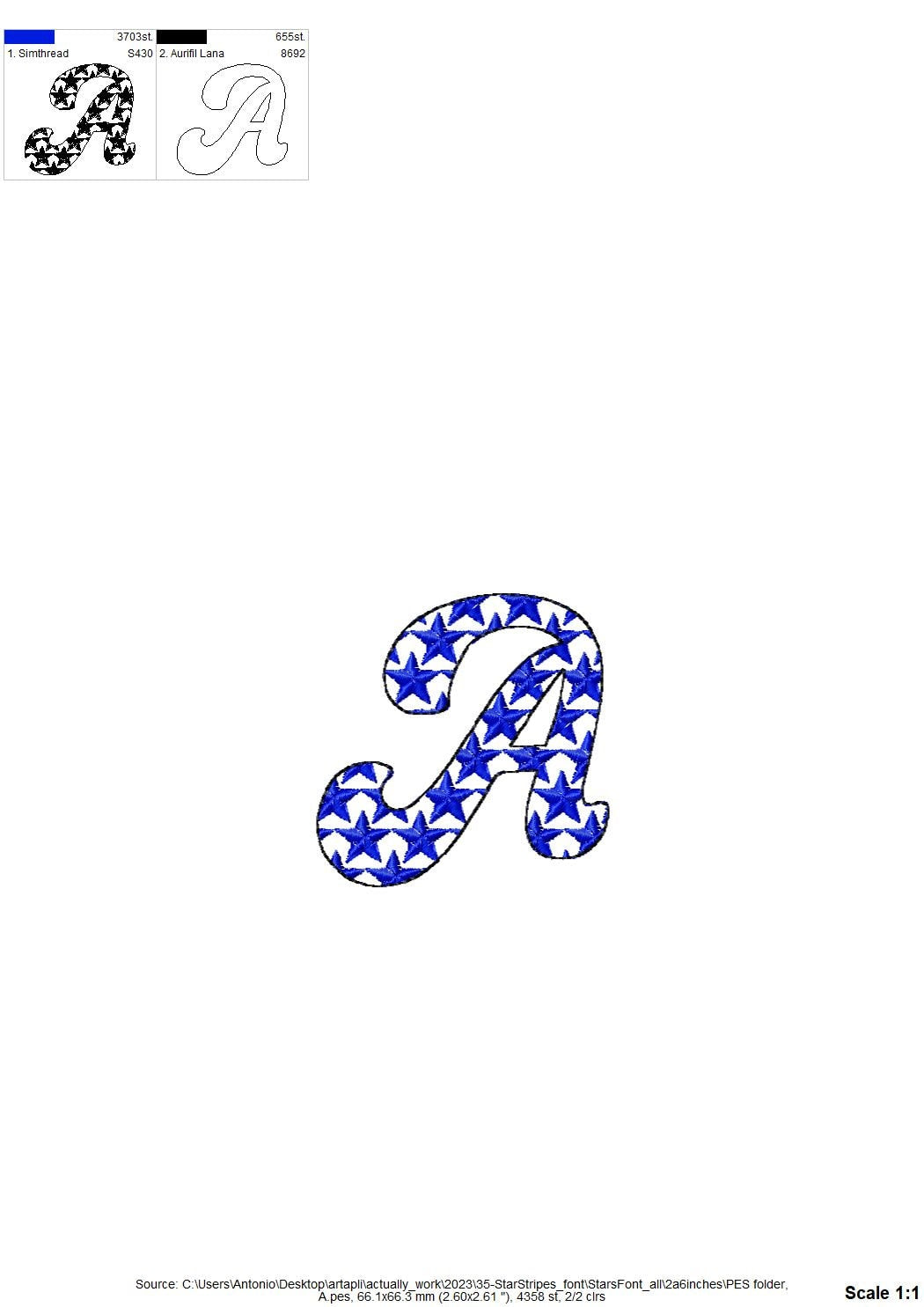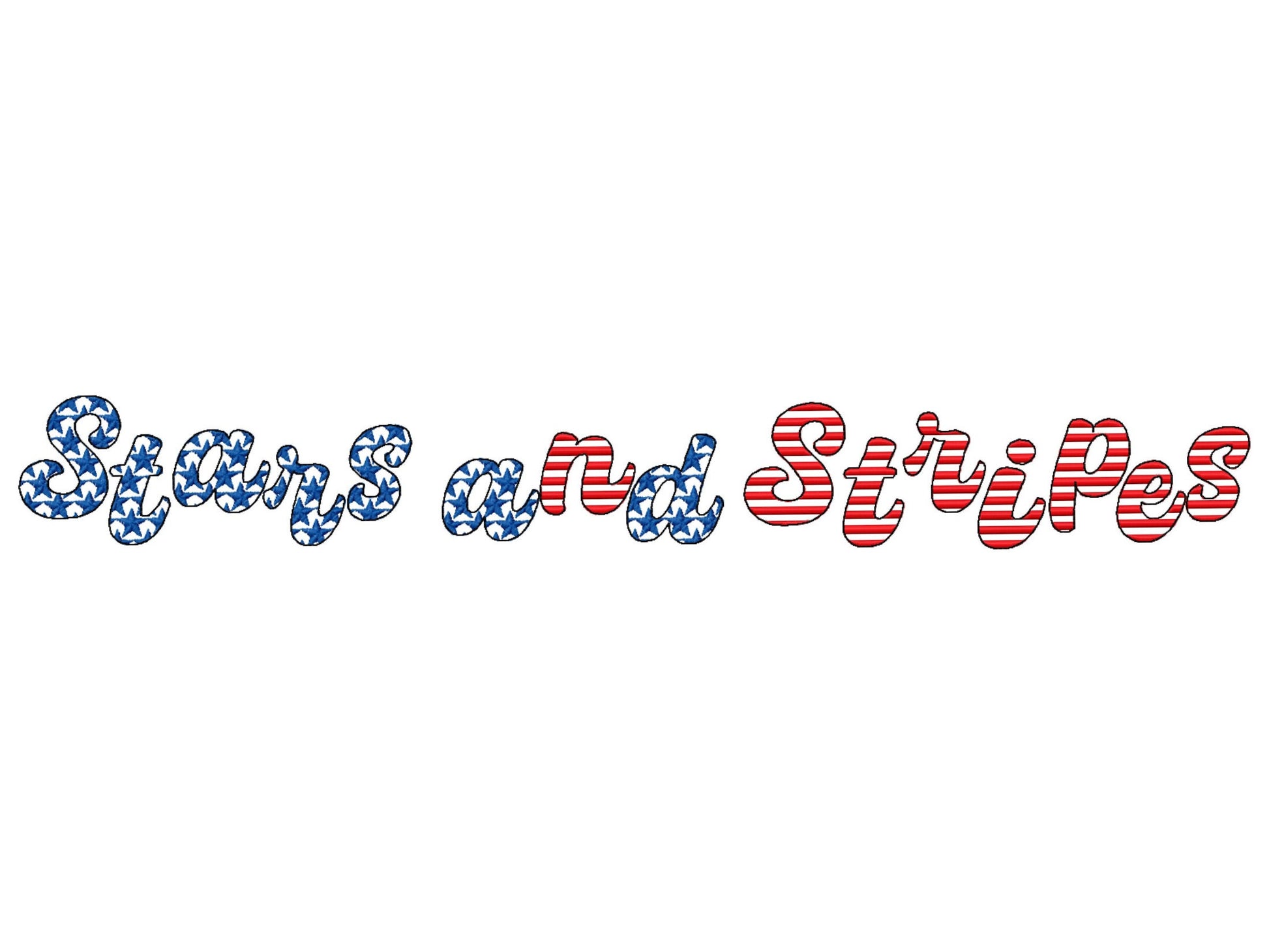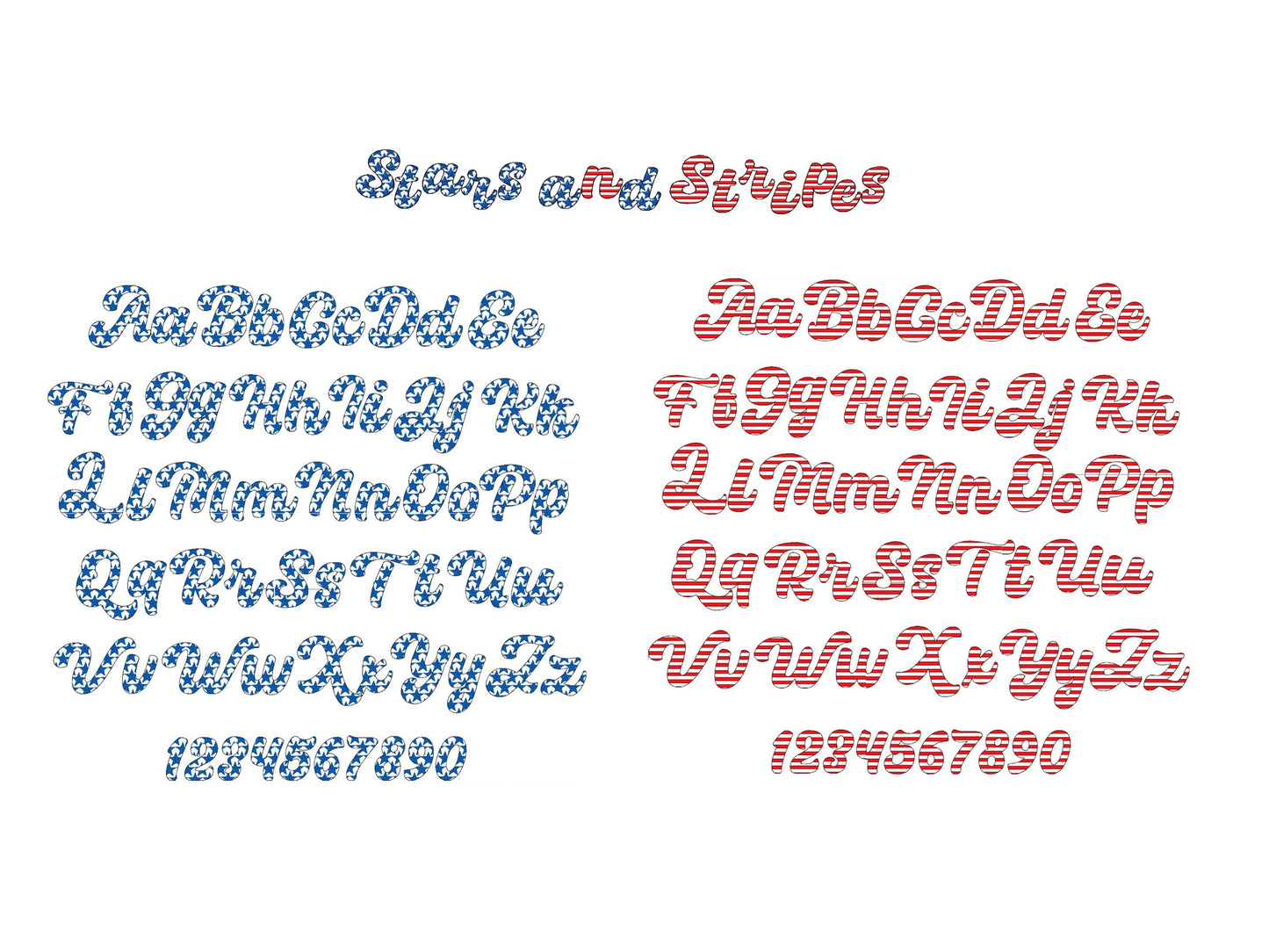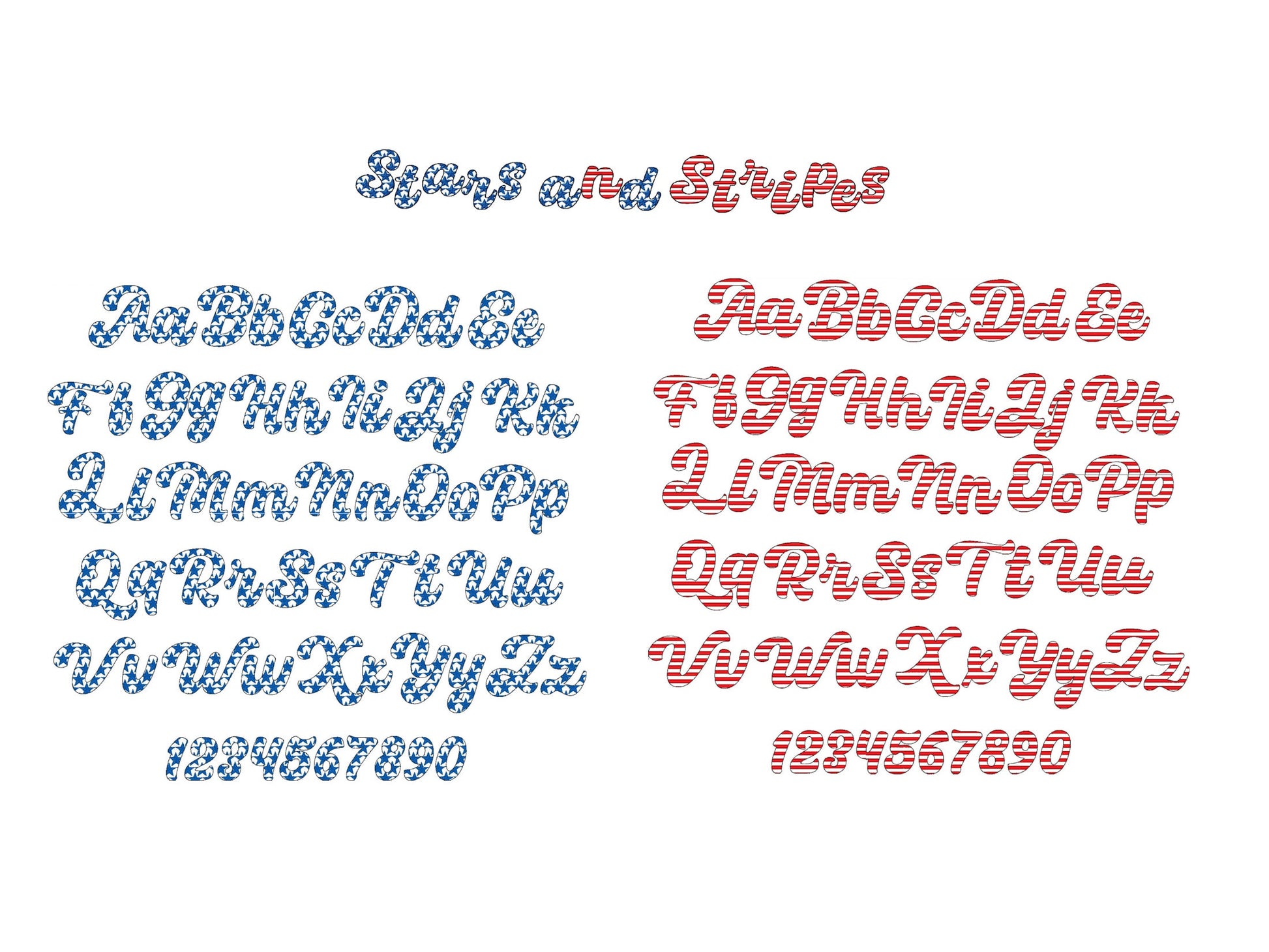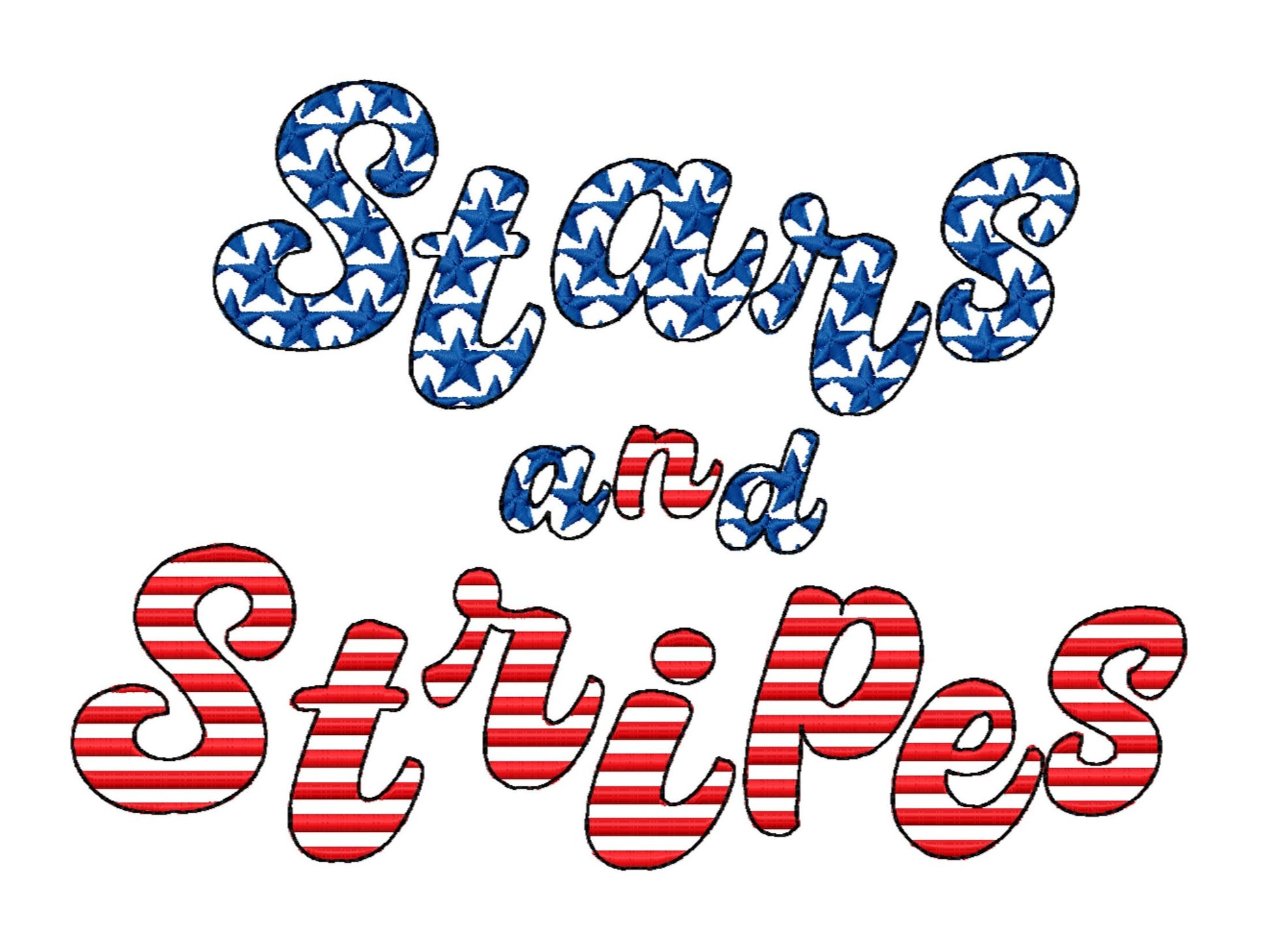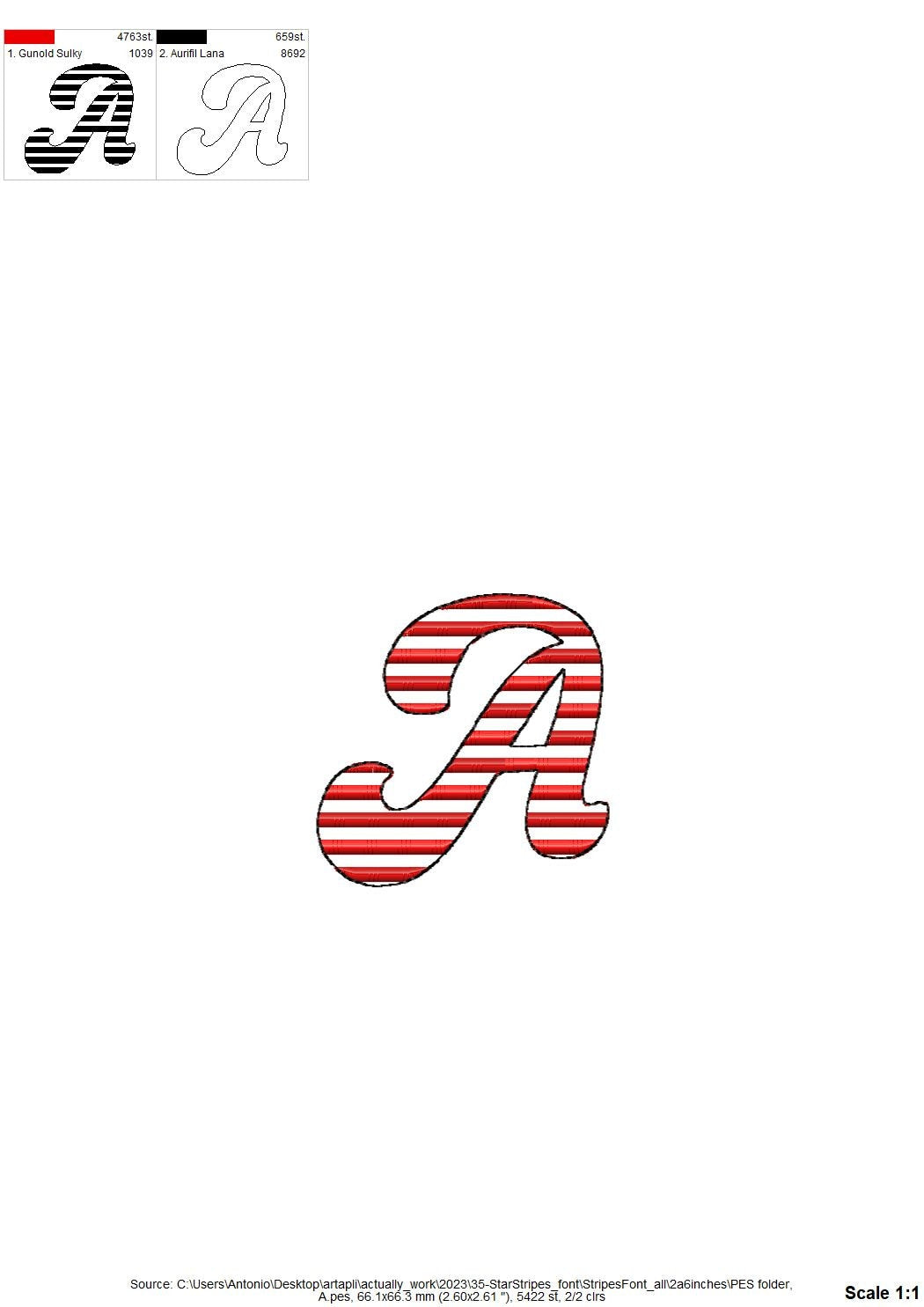
Or click to open the linkA set of two patriotic cursive fonts, one with stars and one with stripes, in light stitch. Great for Fourth of July shirts, pillows, bags and names.
Both fonts have uppercase and lowercase letters, numbers 0 to 9, plus &, period, comma and dash, in seven matching sizes: 1.1, 1.4, 1.7, 2.2, 2.6, 3 and 3.8 inches. Light stitching lets the fabric show through.